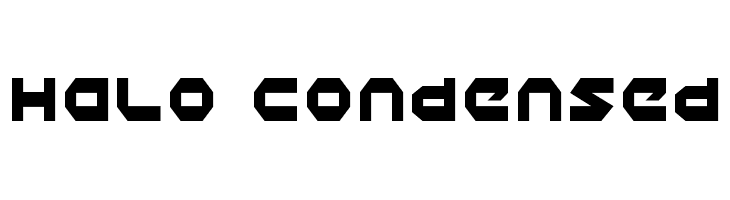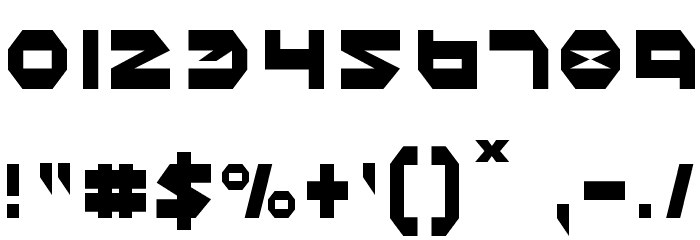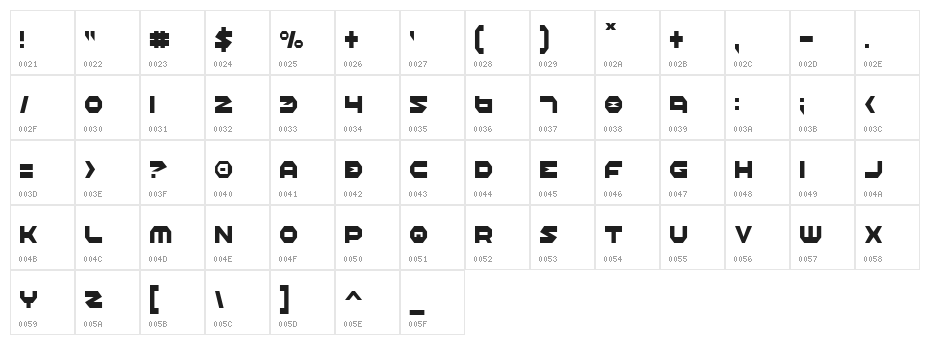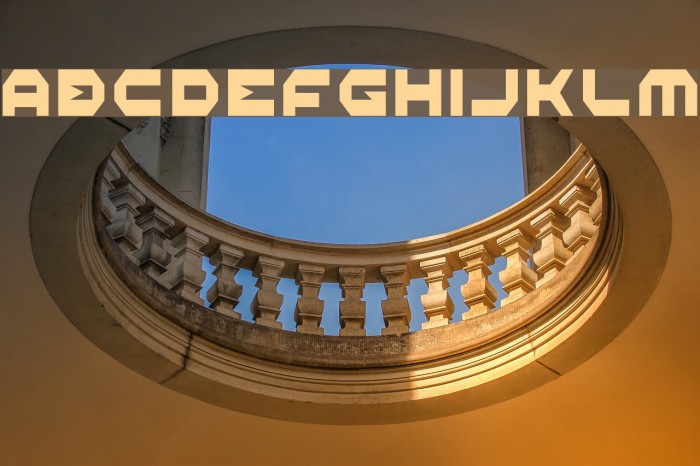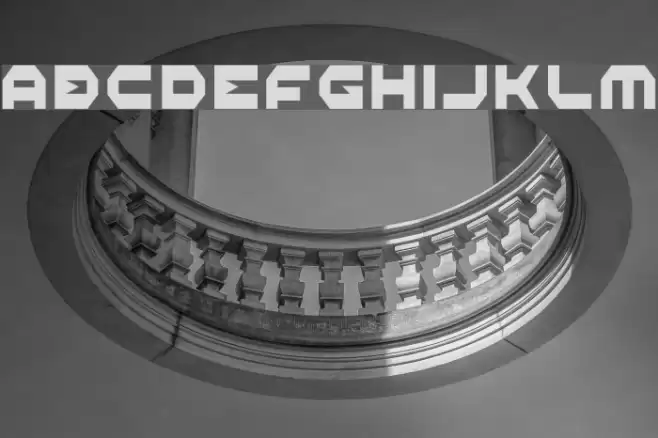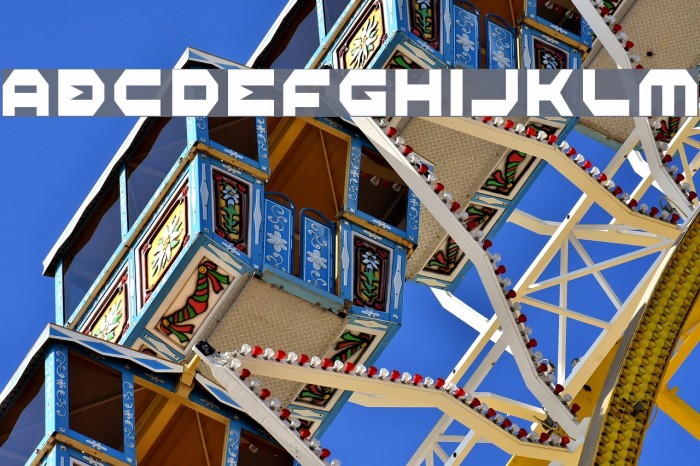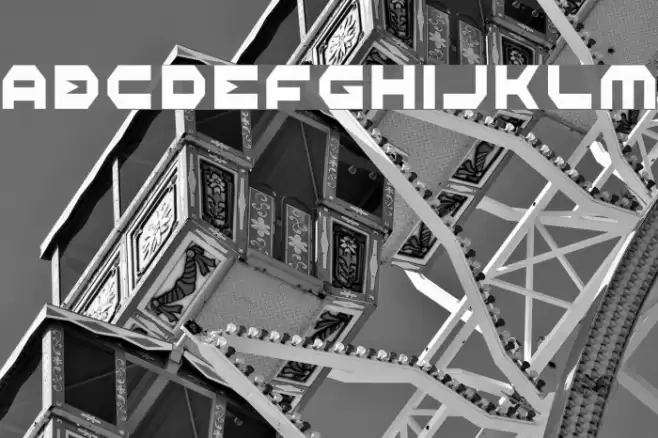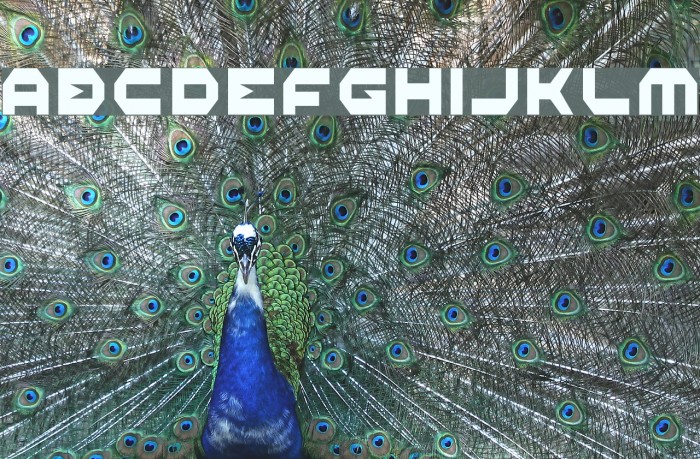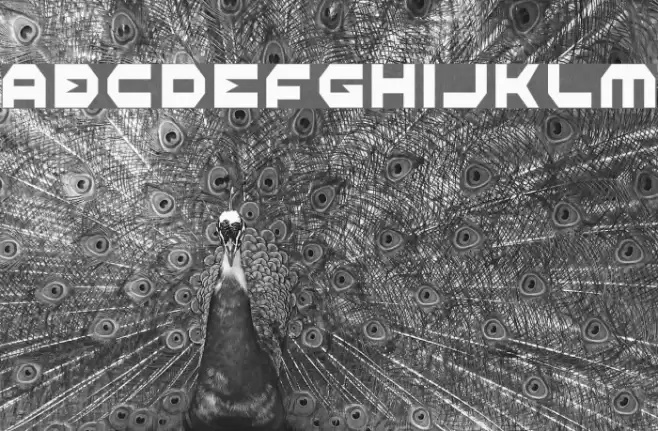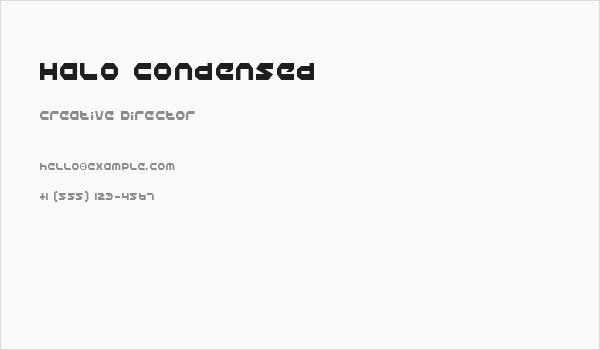
Halo Condensed Font
Halo Condensed Description
This font features a bold, geometric design with a futuristic and angular aesthetic. Each character is constructed with sharp, straight lines and distinct angles, giving it a strong, impactful presence. The uppercase and lowercase letters maintain a consistent style, with a unique approach to traditional letterforms. The numerals and special characters follow the same design principles, ensuring a cohesive look across all glyphs. Its condensed width allows for efficient use of space, making it suitable for striking headlines or titles. The font's modern and edgy style makes it ideal for projects that require a bold statement.
| Proposed Projects | Ideal for sci-fi themed designs, video game titles, tech branding, and modern posters. |